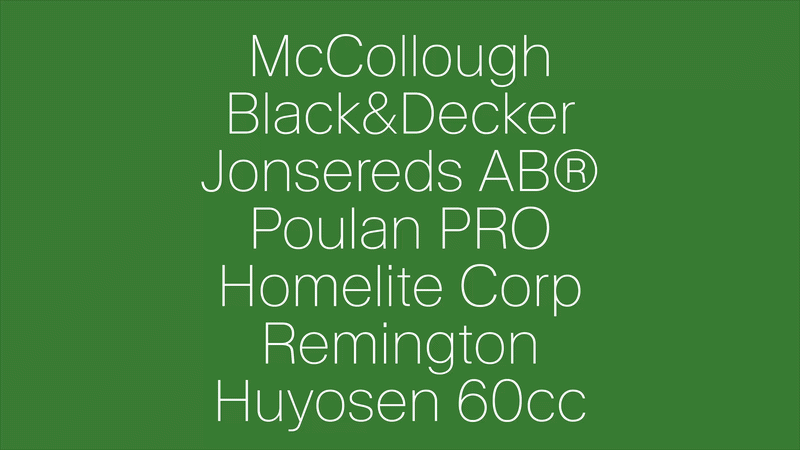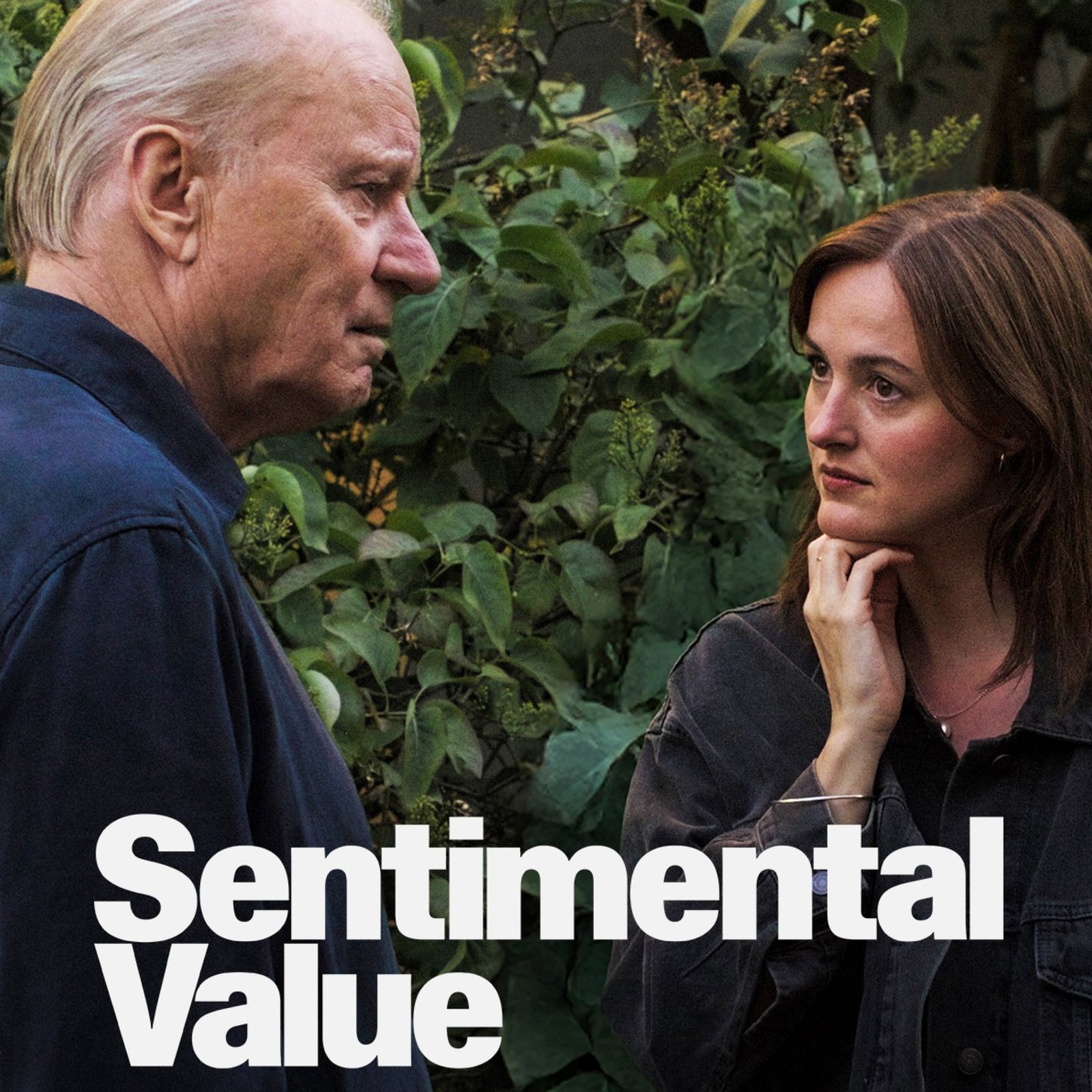
The Waldenburg typeface by Kimera Foundry combines rationalist grotesque construction with calligraphic warmth across 24 cuts, and fronted an Oscar film.
Munich-based designer Michael Clasen named the Waldenburg typeface after his small hometown in southwest Germany. What started as a personal project became a 24-cut superfamily for both analog and digital use. Clasen describes it as combining the early rationalism of Akzidenz Grotesk with the calligraphic warmth of Univers. That is not a blend most type designers attempt. Both references rank among the most studied faces in the grotesque tradition, and merging them without losing coherence takes genuine craft.
The superfamily spans a wide tonal range. At lighter weights, the calligraphic underpinning shows in subtle stroke modulation. At heavier weights, the rationalist skeleton holds firm. The result reads as a coherent system while keeping warmth at the text sizes where it matters most.
How the Waldenburg Typeface Reached an Oscar-Winning Film
Then something rare happened. The Waldenburg typeface was selected to front the campaign for Sentimental Value, a film by Norwegian director Joachim Trier that won Best International Feature at the Academy Awards. The poster uses character faces spliced into progressively smaller nested boxes. Waldenburg held its own within that architectural concept without overpowering the composition.
Clasen put it plainly in conversation with Its Nice That: it is rare for an independent foundry typeface to become culturally significant. Most typefaces exist in studio work and print collateral. Reaching a global award-winning film campaign moves the Waldenburg typeface into a different conversation about what independent type design can do.